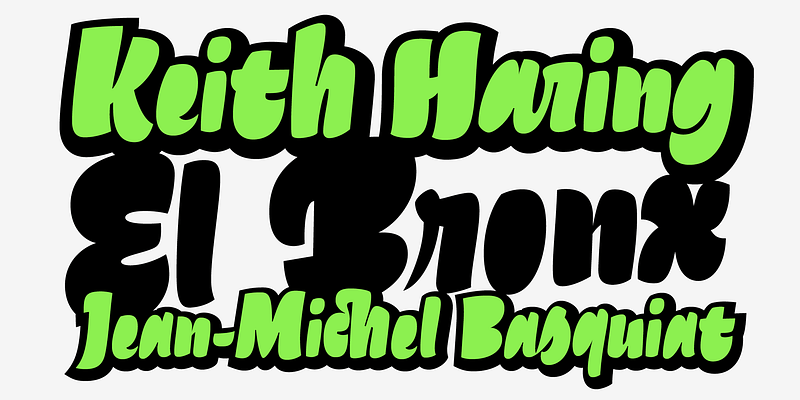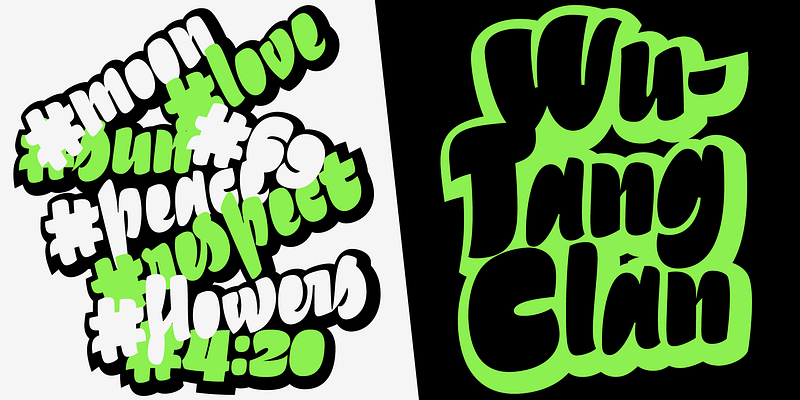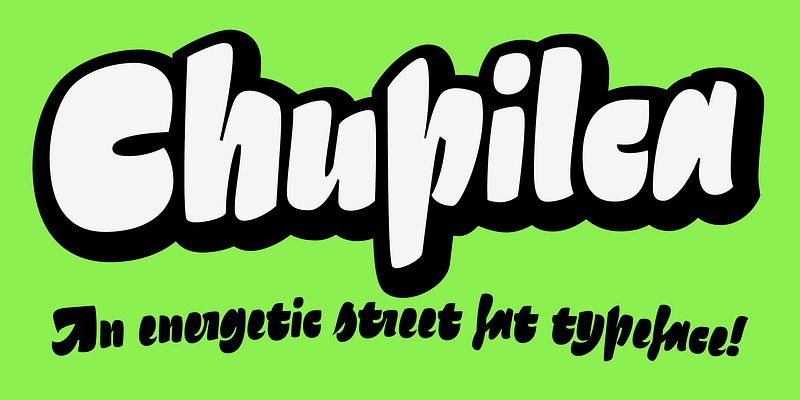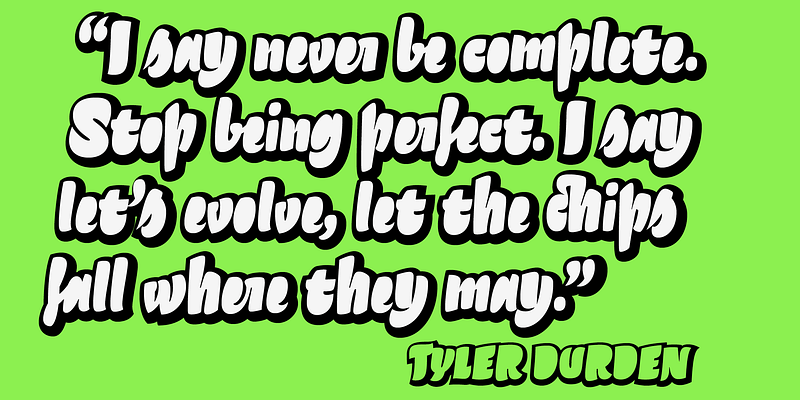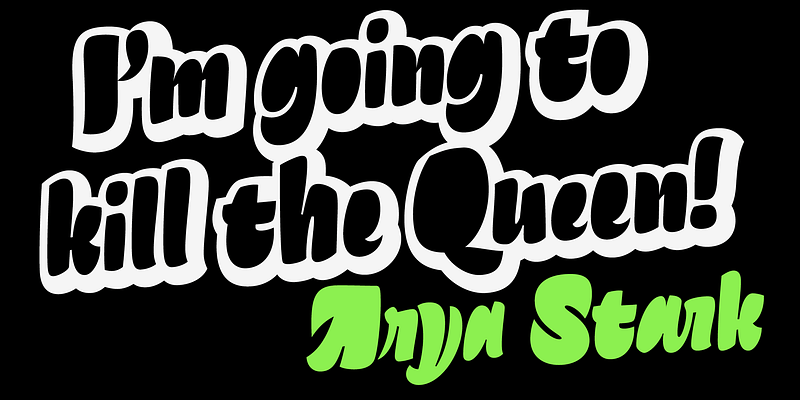
Without closed counterforms, Chupilca is an exercise in rhythm and boldness, an expressive rough script-like typeface that works nice for logos or headlines looking for a carefree and daring look.
The base font is Chupilca Fat, which comes with an extruded shadow layer called Chupilca Background. Both fonts includes many alternative and contextual characters, standard and discretionary ligatures, and you can place one text box on top of the other, both perfectly aligned, to play with the color of the Fat font and its Background.
Its name means a drink from the south of Argentina and Chile composed of red wine and toasted flour with a variation composed of gunpowder and schnapps, called ‘Chupilca del Diablo’, supposedly used to encourage soldiers during the armed conflict between Chile, Perú, and Bolivia called the Salitre War, which took place in 1789.